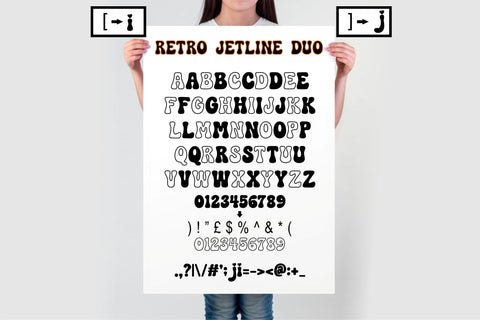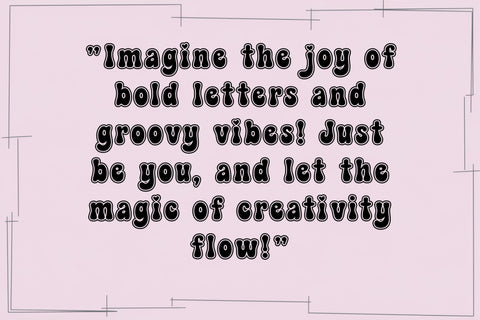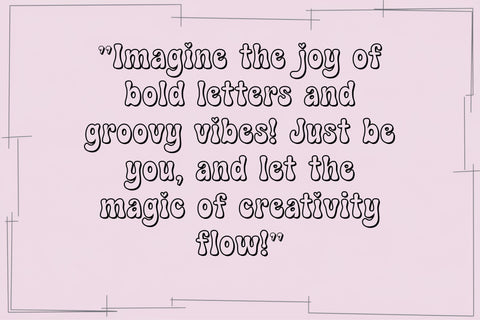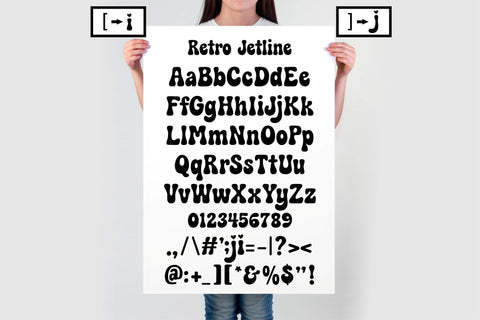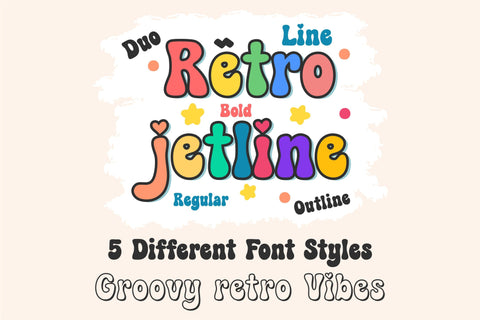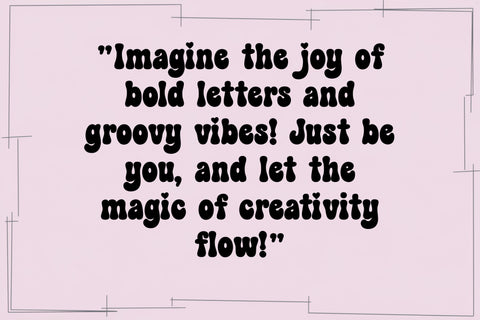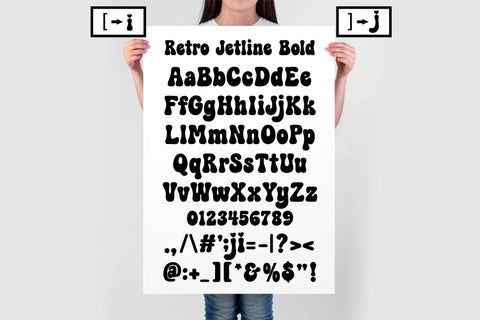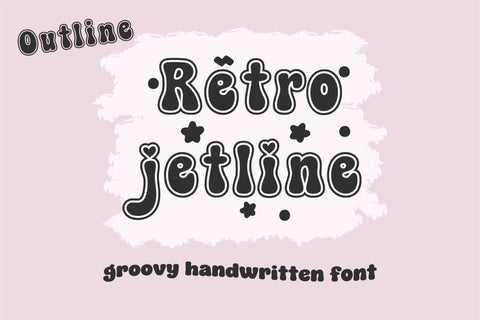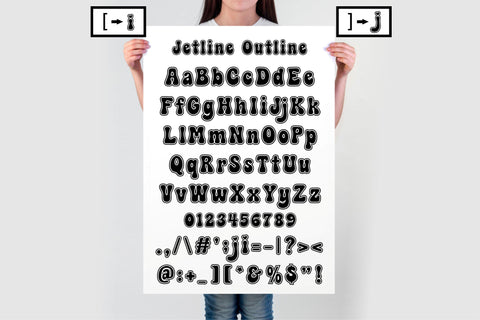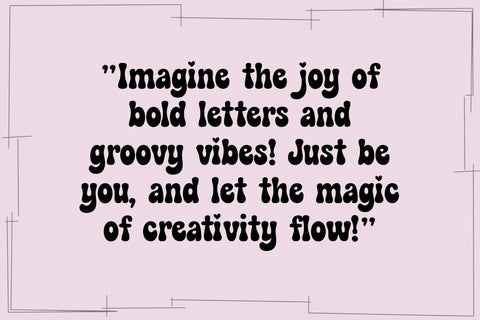
Retro Jetline Font | Groovy 70s-Inspired Font with 4 Styles | Regular, Bold, Duo & Outline
Retro Jetline is ideal for crafting, branding, and decorating your creative projects. This groovy font is perfect for wedding invitations, blog headers, and social media posts. With its retro charm, you can create stunning logos or beautiful decorative frames for your home. Whether you're working on business branding, book covers, stationery, marketing materials, or magazine layouts, Retro Jetline’s bold and versatile styles will make your designs stand out with a nostalgic touch.
5 font styles: Duo, Regular, Bold, Line, and Outline
Full alphabet (A-Z), numbers, and symbols
Retro designs, vintage themes, branding, and funky quotes, Retro Jetline brings fun, creativity, and timeless style to your work.